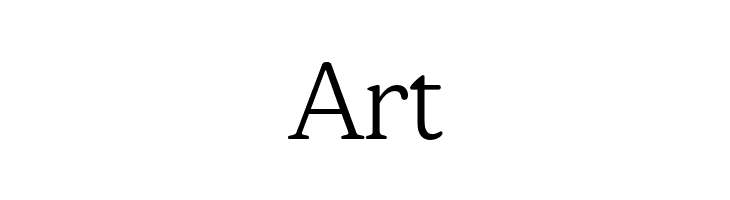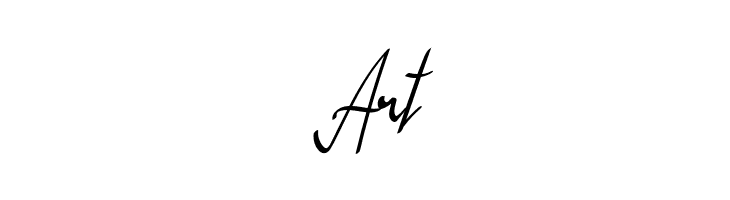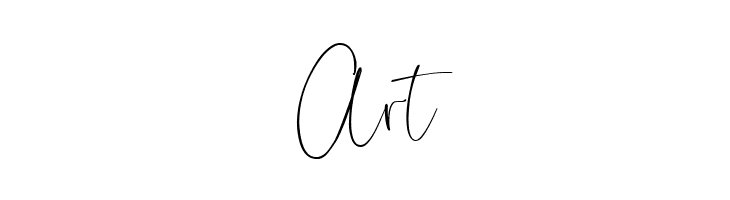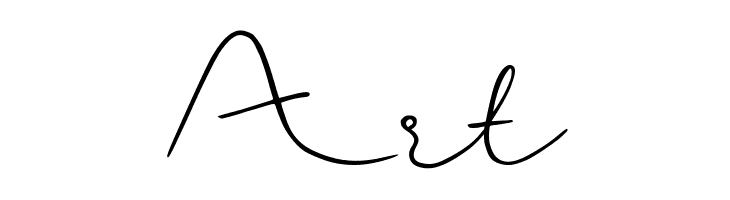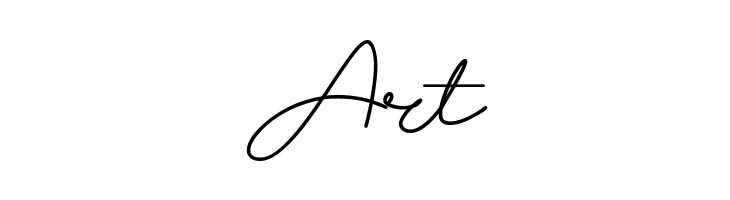
A clean and elegant serif font with thin, graceful strokes.
Elegant cursive script with fluid, connected letters and graceful curves.
A graceful cursive font with elegant, flowing characters.
A graceful and elegant handwritten script font with fluid, connected letters.
A graceful, flowing script font with elegant, connected strokes.
A sophisticated and elegant handwritten script font with fluid, graceful strokes.
A graceful, cursive script font with flowing, connected characters.
A graceful and elegant script font with a handwritten style.
A delicate, flowing script font with elegant, thin strokes and graceful curves.
A graceful cursive script with smooth, flowing lines and elegant connections.